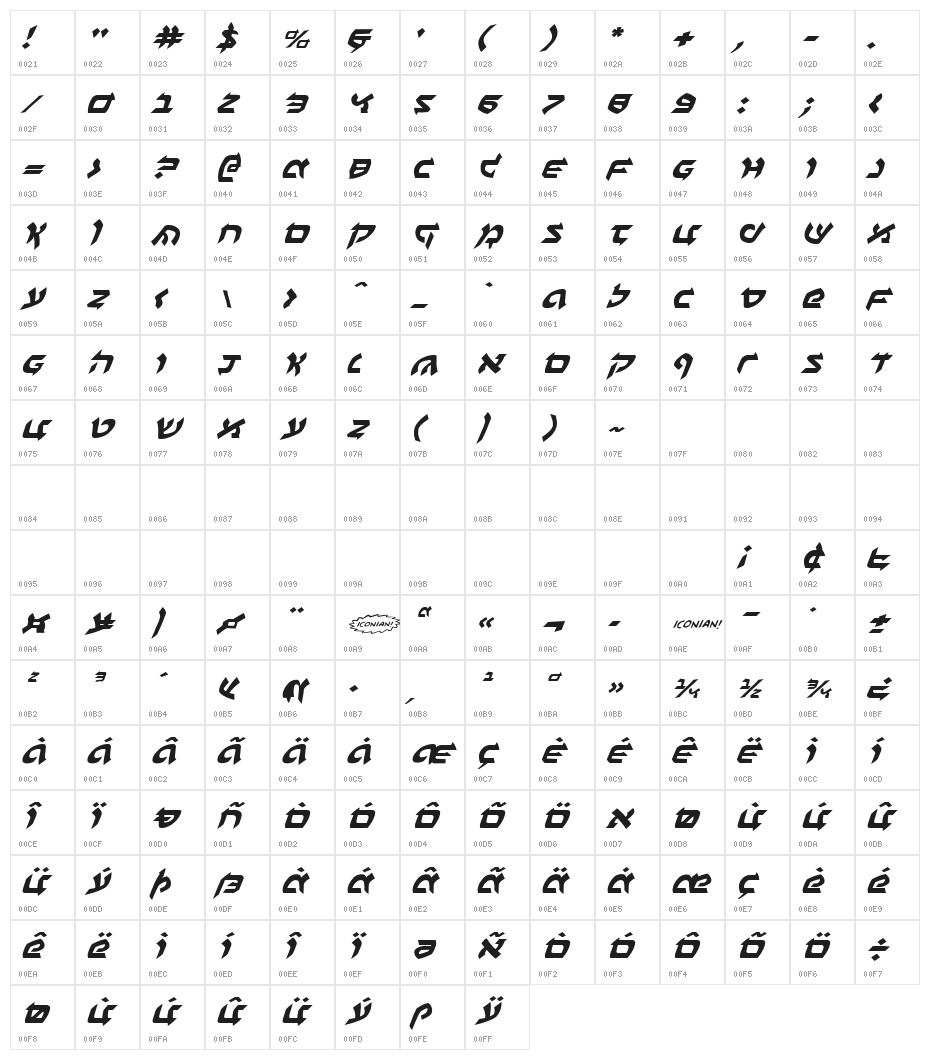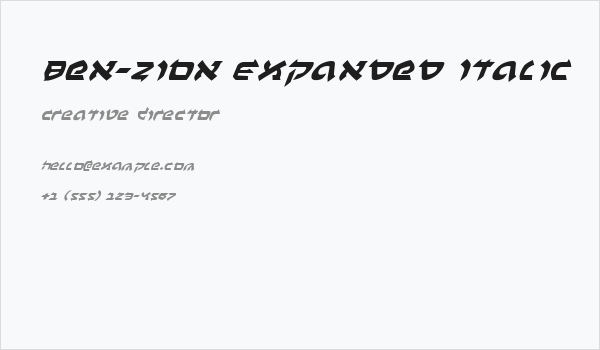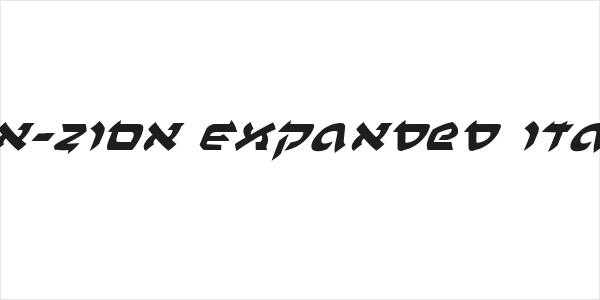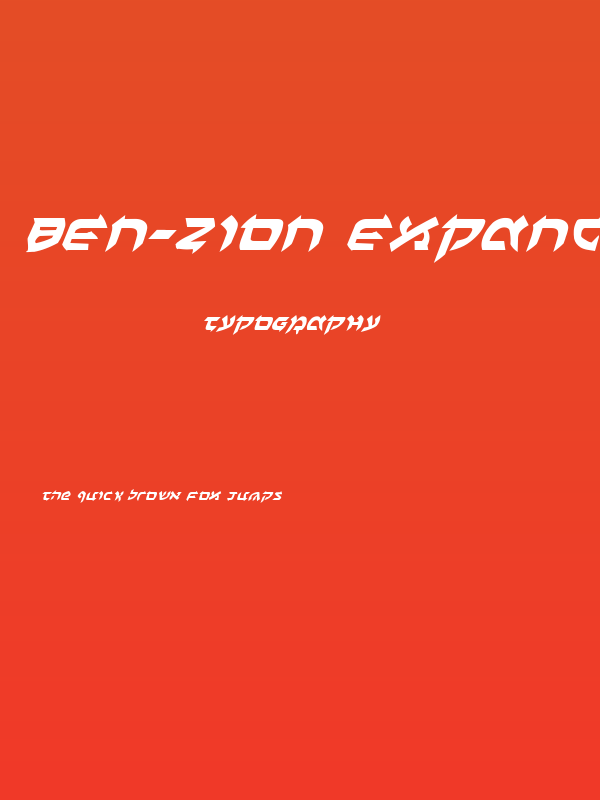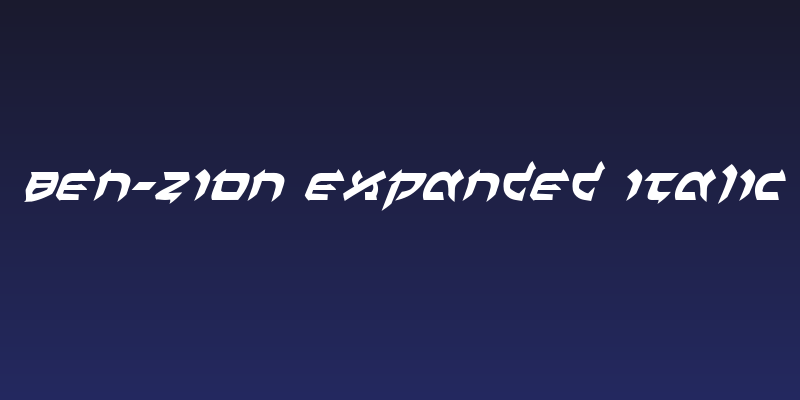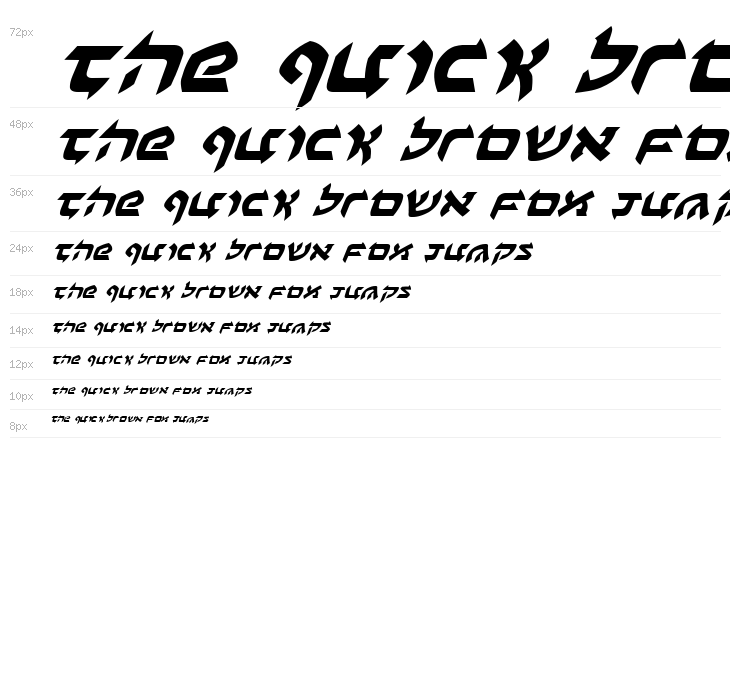
Ben-Zion Expanded Italic Font
Ben-Zion Expanded Italic Description
This font features a bold, italicized style with an expanded width, giving it a dynamic and futuristic appearance. The characters are sharply angled, with a distinct geometric influence that makes them stand out. The uppercase and lowercase letters maintain a consistent style, with the lowercase being slightly more rounded. Numbers and special characters follow the same angular and bold design, ensuring uniformity across all glyphs. The font's unique style is both eye-catching and legible, making it suitable for a variety of creative applications.
| Proposed Projects | Ideal for sci-fi themed projects, video game titles, tech branding, and modern posters. |